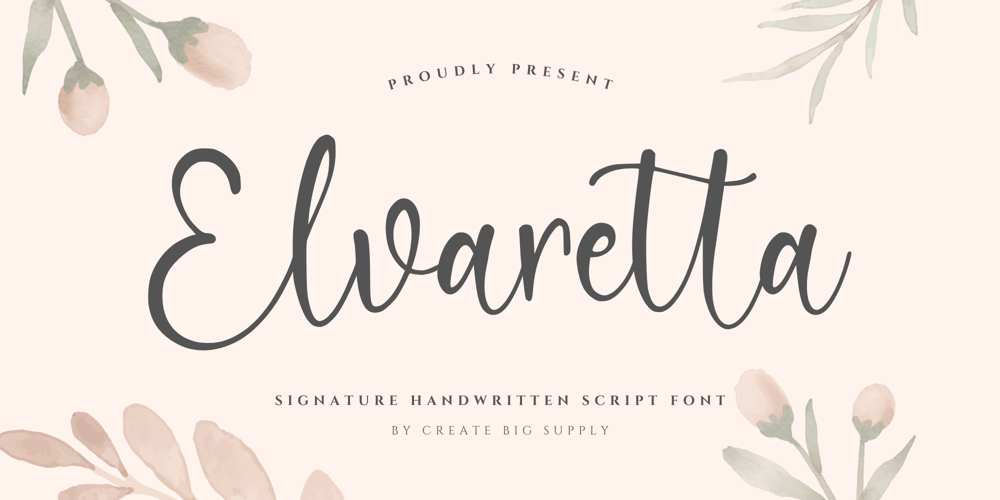
Elvaretta Font Family was designed by Irpan Maulana and published by Create Big Supply. Elvaretta contains 1 styles and family package options. Discover the beauty and elegance of Elvaretta, a stunning script handwriting font designed to add a touch of sophistication to your creative projects. With its graceful curves and flowing strokes, Elvaretta brings a sense of charm and authenticity to your typography.This versatile font features both uppercase and lowercase letters, allowing you to create captivating designs with ease. Whether you’re working on invitations, logos, branding materials, or any other project that calls for a stylish handwritten touch, Elvaretta is the perfect choice to elevate your work.In addition to its aesthetic appeal, Elvaretta is designed with practicality in mind. It includes a comprehensive set of numbers and punctuations, ensuring seamless integration of numerical information into your designs. The font also boasts multilingual support, enabling you to communicate your message effectively in various languages and reach a global audience.Elvaretta has equipped with PUA (Private Use Area) encoding, granting access to special characters, ligatures, and alternate letterforms. This feature empowers you to customize your typography and add unique touches to your designs, making them truly one-of-a-kind.Visit our store at MyFont to download Elvaretta and unlock a world of creative possibilities. Enhance your designs with the elegance and charm of this script handwriting font, and let your creativity flourish.